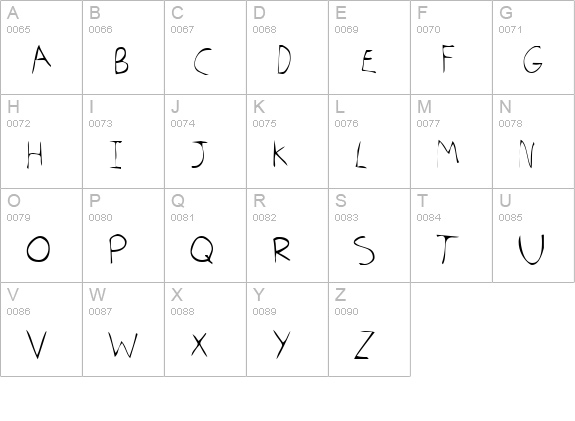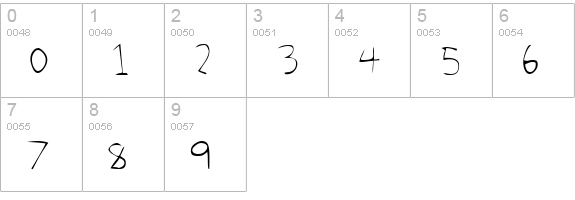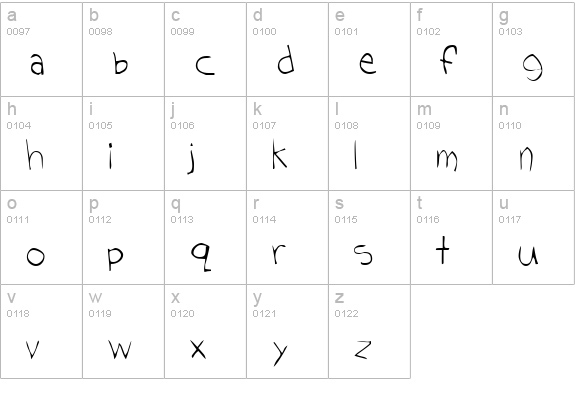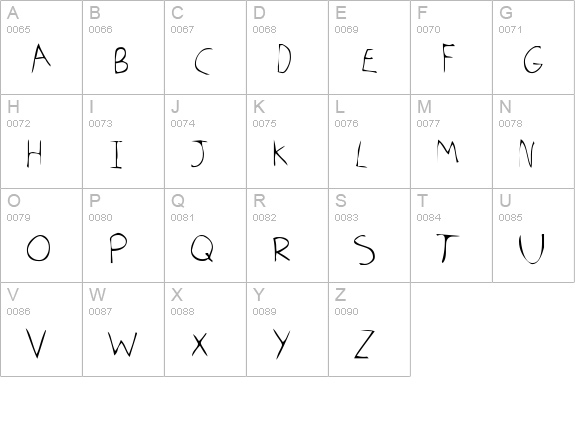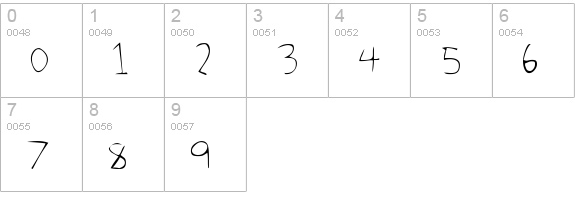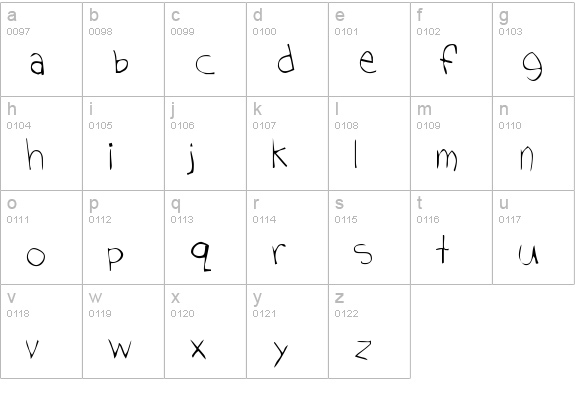
Tom's Handwriting Font Details
Introducing Tom's Handwriting font, a stunningly authentic typeface that effortlessly captures the unique essence of handwritten script. This exquisite font is the perfect blend of elegance and charm, making it an ideal choice for a wide range of creative projects. Tom's Handwriting font exudes a sense of personality and individuality, as if each letter was carefully crafted by hand with meticulous attention to detail. Its effortlessly flowing strokes and delicate curves create a truly captivating aesthetic that is sure to leave a lasting impression. One of the most appealing aspects of Tom's Handwriting font is that it is completely free. That's right, you can now download this extraordinary font at absolutely no cost on FontsMarket.com. This means that you can enjoy the beauty and versatility of Tom's Handwriting font without any limitations or restrictions. Whether you're designing invitations, creating custom logos, or adding a personal touch to your digital artwork, Tom's Handwriting font is the perfect companion. Its versatility allows it to effortlessly adapt to a wide range of design styles, making it a valuable asset for both professional designers and casual enthusiasts alike. So don't miss out on this incredible opportunity to enhance your creative projects with the elegance and authenticity of Tom's Handwriting font. Head over to FontsMarket.com today and download this remarkable font for free. Unleash your creativity and elevate your designs with the timeless beauty of Tom's Handwriting font.